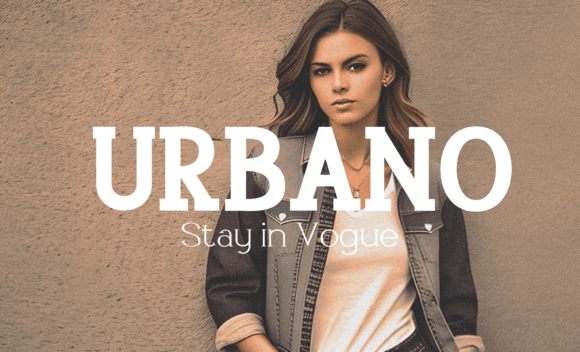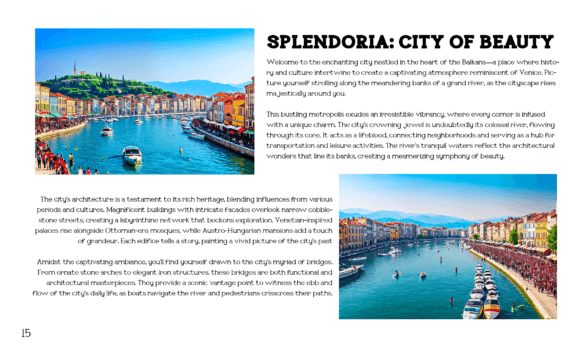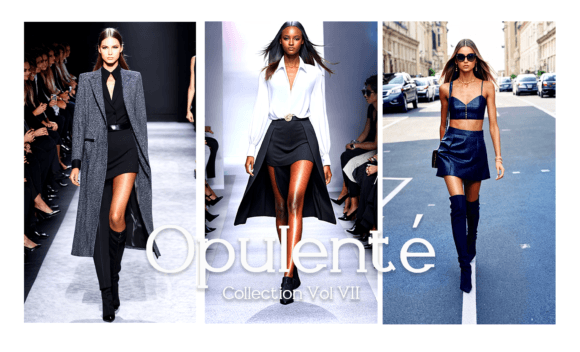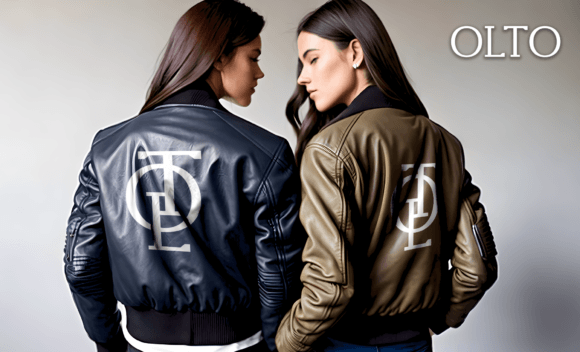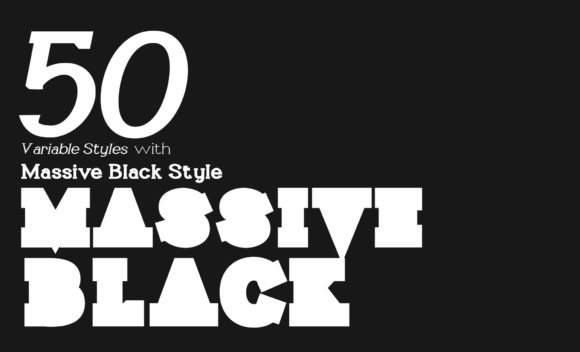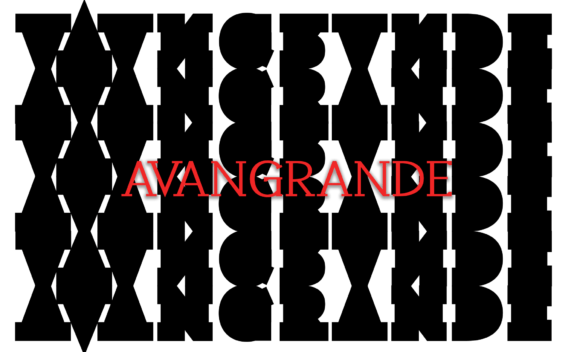
Introduction to Lievin Font
Liévin is an exceptional slab serif font renowned for its simple, clean lines and elegant charm.
With its versatile nature, it effortlessly adapts to various design needs Offering a staggering range of 50 variable styles, from thin to massive black, it caters to diverse typographic demands.